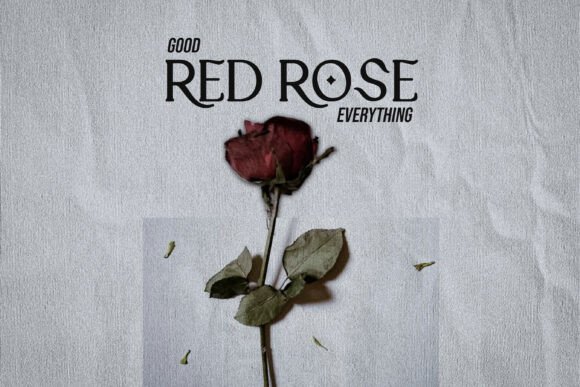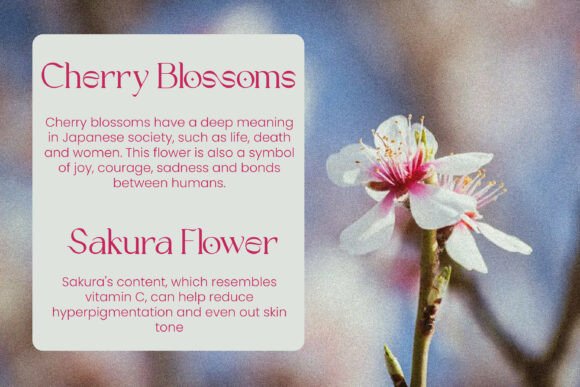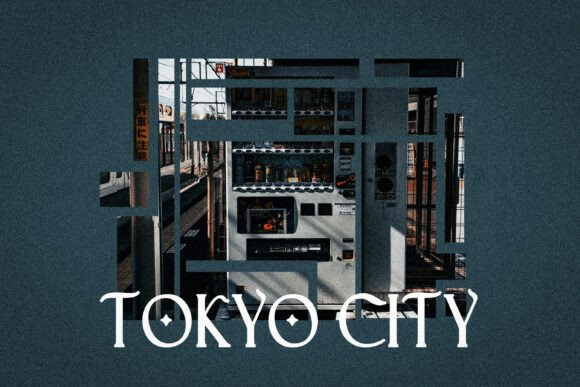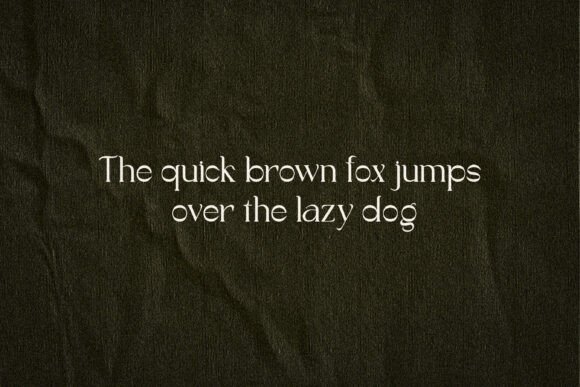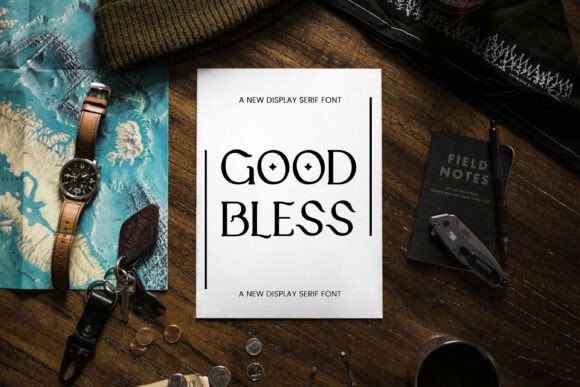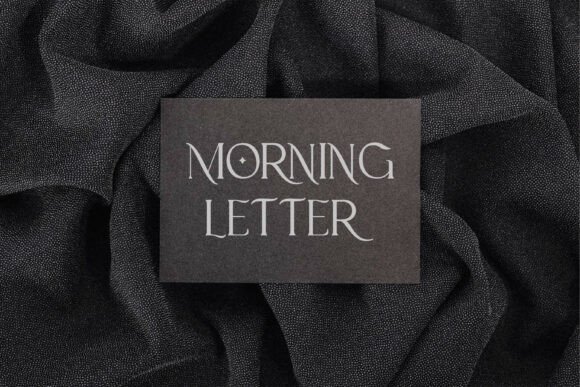
The Cheliny Font: Elevating Designs with Elegance and Boldness
An Honest Review of Cheliny Font
- ✅ Elegant and refined curves that add a touch of sophistication to any design
- ✅ Sharp contrasts that create a beautiful visual hierarchy
- ✅ Strong character that makes a bold statement
- ✅ Perfect for editorial designs, branding, packaging, logo headlines, fashion campaigns, and high-end product displays
While Cheliny Font is an excellent choice, it’s not without its limitations. For instance:
- 🤔 It may not be the best choice for body text or long-form content due to its display nature
- ⚠️ Some users may find the font’s boldness overwhelming for certain design projects
- Experiment with OpenType features, such as ligatures and stylistic alternates, to add more personality to your design
- Explore the font’s glyphs and OpenType features to create stunning designs
- Use the font’s stylistic alternates and ligatures to add a touch of elegance to your documents
The Designer Inspiration Behind Cheliny Font
Cheliny Font was inspired by the works of renowned typographers who sought to create a font that blended elegance with boldness. The designer’s goal was to create a font that would make a statement while maintaining a level of sophistication and refinement. The result is a font that exudes luxury, elegance, and a touch of boldness.
Q: What is Cheliny Font best used for?
A: Cheliny Font is perfect for editorial designs, branding, packaging, logo headlines, fashion campaigns, and high-end product displays.
Q: Is Cheliny Font suitable for body text?
A: While Cheliny Font is a beautiful font, it’s not ideal for body text or long-form content due to its display nature.